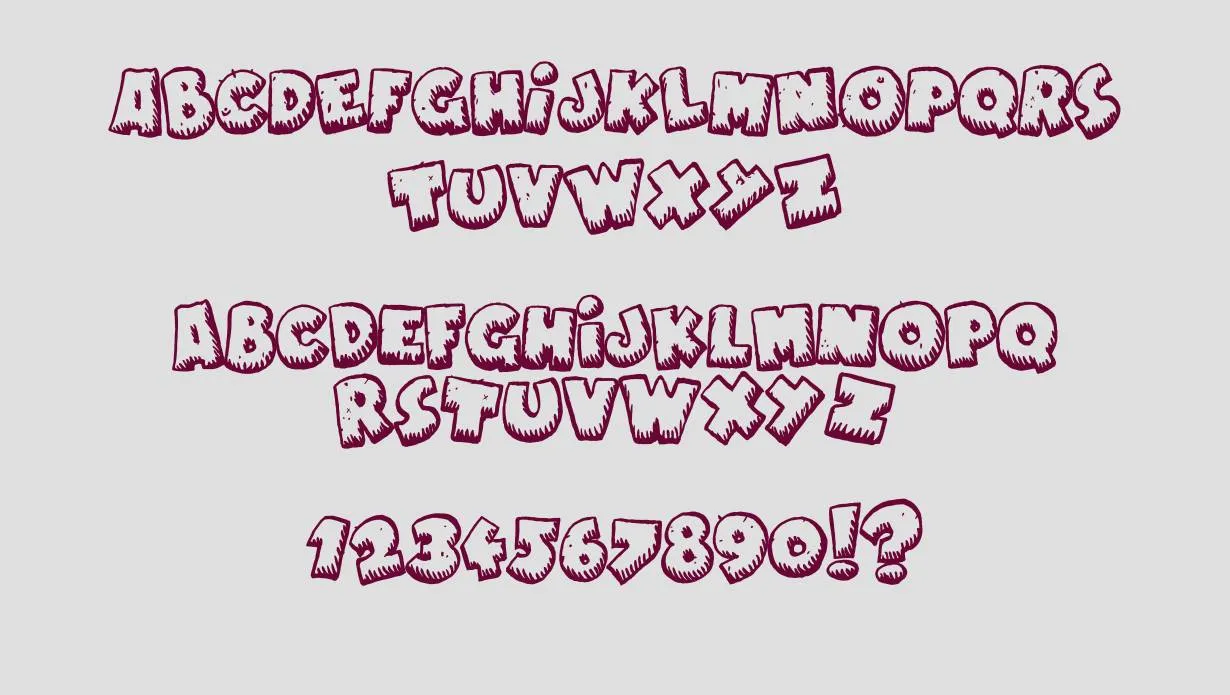
The Naughty Cartoon Regular font injects a fun and cartoonish vibe into designs, frequently seen in comics, children’s books, or any project seeking a playful and whimsical look.
Its lively and informal style introduces a sense of humor and light-heartedness to the text, appealing to audiences looking for a cheerful and animated feel in their designs.